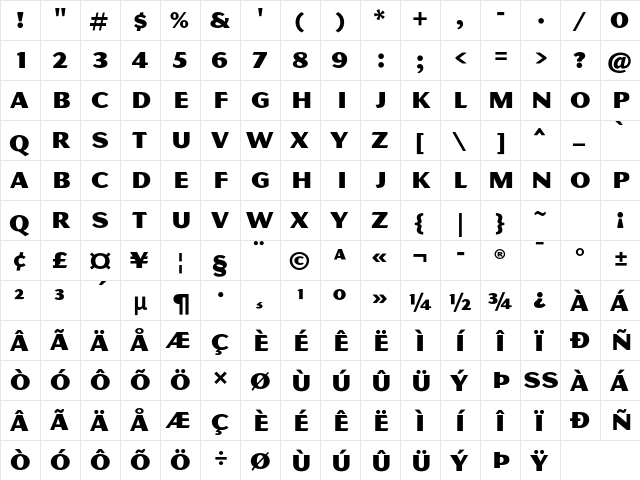
Magnesium MVB Std Regular
| Designer | Mark van Bronkhorst |
Design Context for Magnesium MVB Std Typeface
Magnesium MVB Std offers clean, dependable letterforms without strong stylistic allegiance, making it a practical choice for designers who need flexibility.
Pro Tip: Pair Magnesium MVB Std with a font of contrasting weight or personality to build a more expressive typographic hierarchy.